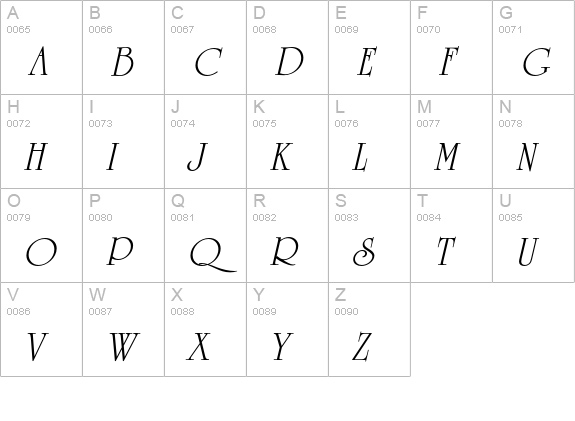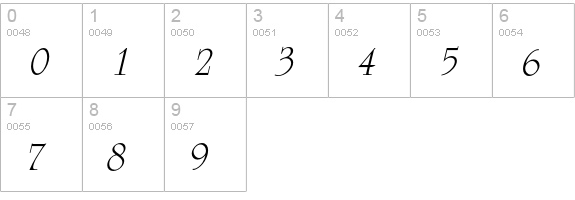
UniversityEF-RomanItalic Font Details
UniversityEF-RomanItalic is a stunningly elegant and versatile font that effortlessly combines the timeless beauty of Roman typography with a modern twist. Its sleek and sophisticated design is perfect for conveying a sense of professionalism and refinement, making it an ideal choice for a wide variety of projects. With its clean and crisp lines, UniversityEF-RomanItalic exudes a sense of confidence and authority, making it perfect for corporate materials, academic publications, and formal invitations. Its italicized form adds a touch of elegance and grace, making it a go-to choice for any design that requires a touch of sophistication. One of the most remarkable features of UniversityEF-RomanItalic is that it is freely available to download at FontsMarket.com. This means that designers, students, and professionals alike can access this extraordinary font without any cost, allowing them to elevate their designs and projects without breaking the bank. The versatility of UniversityEF-RomanItalic is truly impressive. From headline text to body copy, this font effortlessly adapts to any size or style, ensuring that your message is always clear and visually appealing. Its excellent readability makes it an excellent choice for lengthy passages of text, ensuring that your audience can easily absorb the information you're presenting. Whether you're designing a logo, creating a presentation, or working on a publication, UniversityEF-RomanItalic is the perfect font to add a touch of class and sophistication to your project. Its timeless beauty and modern design make it a true standout, and its availability for free download at FontsMarket.com makes it an absolute must-have for any designer or enthusiast.